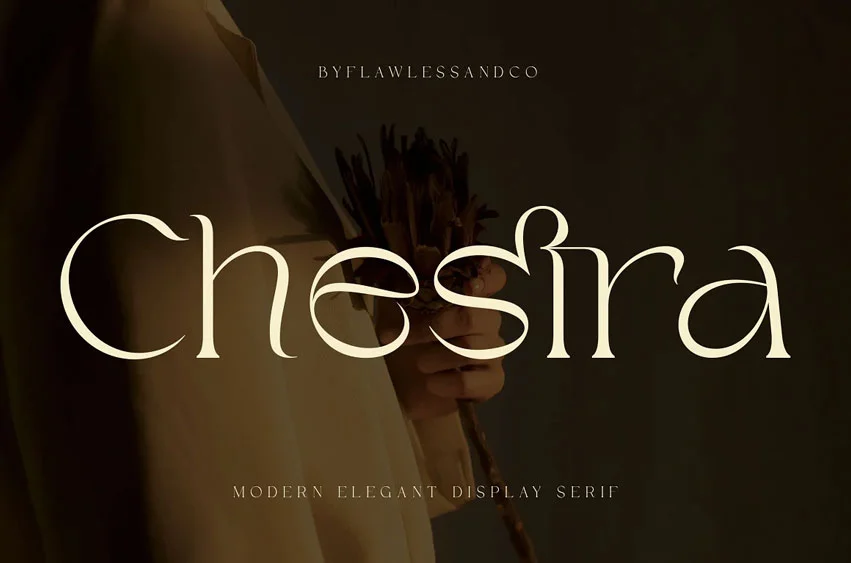
Chestra Font is a Modern Serif Typeface, with some connected letters that are perfect for branding materials, t-shirts, logos, posters, photography, quotes, and many more. An elegant font type to complete your display creation such as wedding invitation cards, etc.